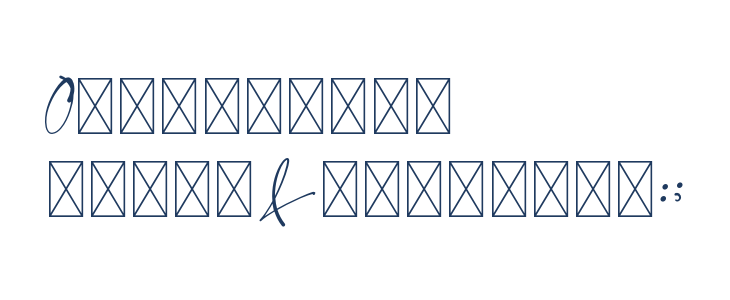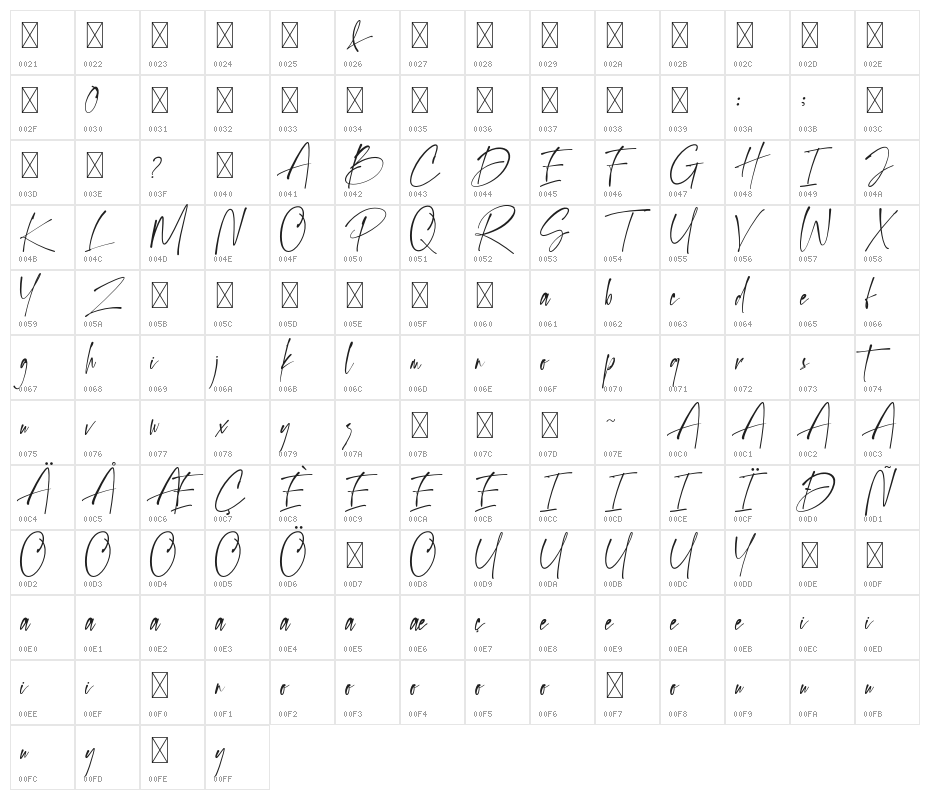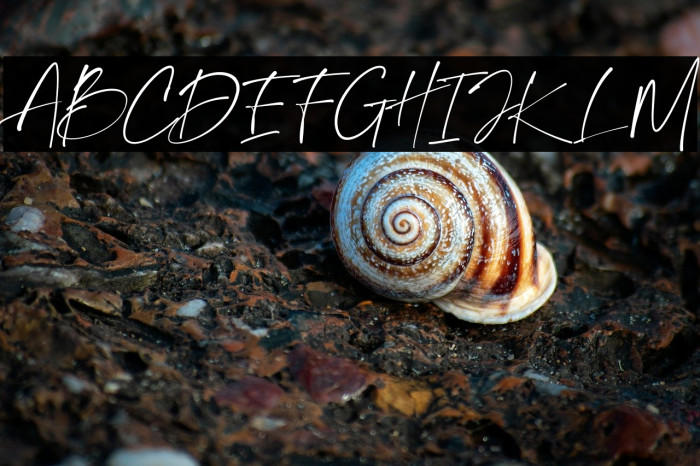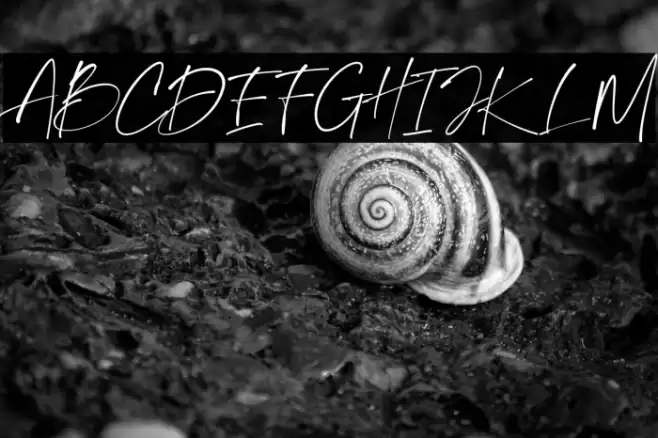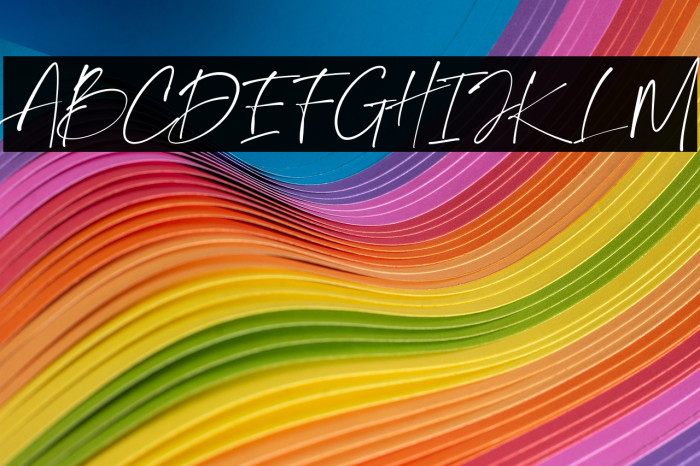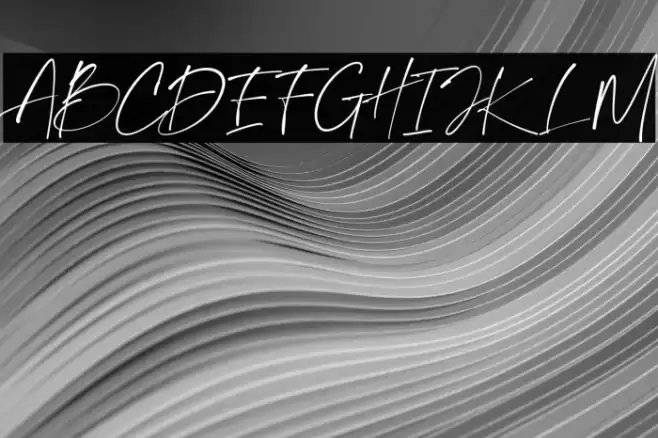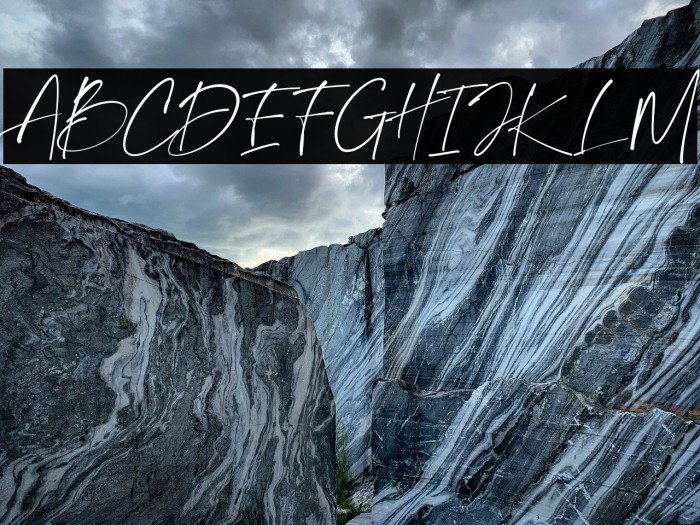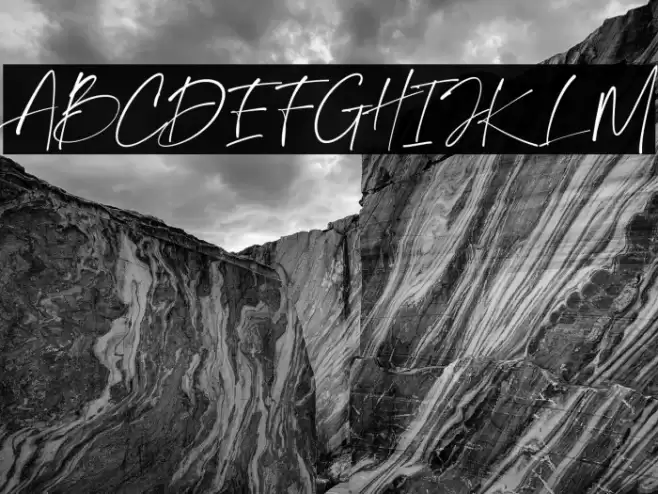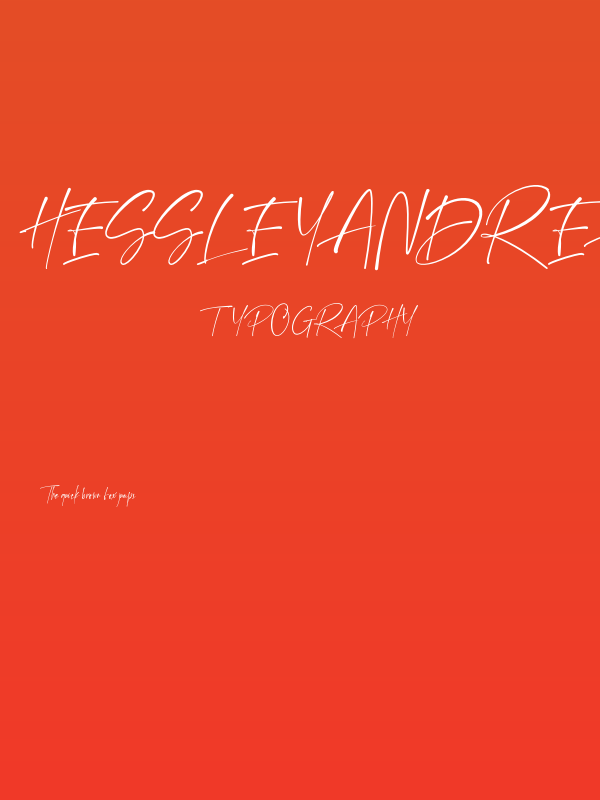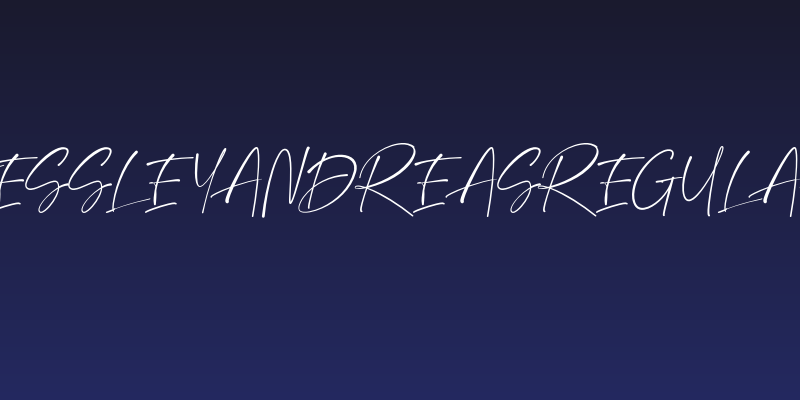
HessleyAndreasRegular Font
HessleyAndreasRegular Description
This font features a dynamic and expressive handwritten style, characterized by its fluid and cursive letterforms. The uppercase letters are tall and slender, with a slight slant that adds a sense of motion and elegance. The lowercase letters maintain a consistent flow, with varying stroke widths that create a lively and organic appearance. The font's overall aesthetic is both modern and artistic, making it suitable for creative and informal applications. The special characters are integrated seamlessly, maintaining the handwritten feel throughout.